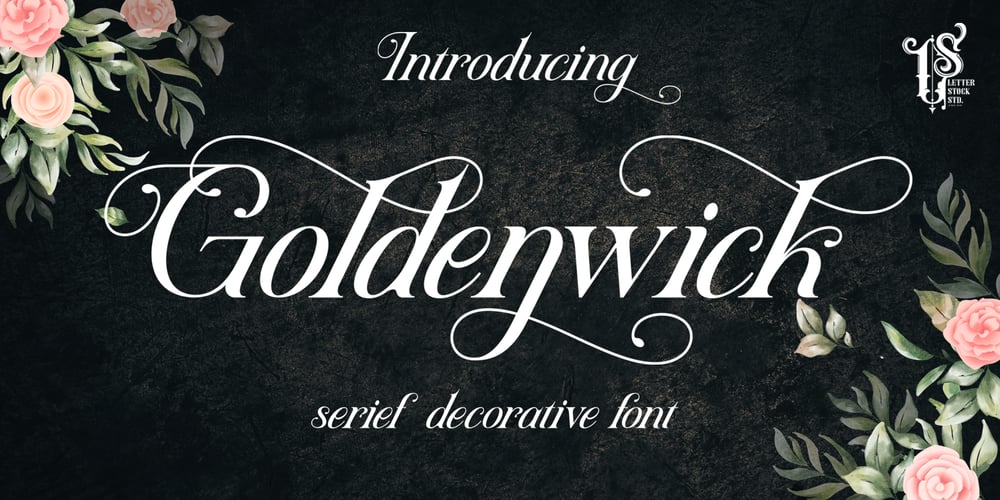
Goldenwick Font Family was designed by Studio LetterStock and published by LetterStock. Goldenwick contains 1 styles and family package options. GoldenwickThis pair was inspired by lettering at invitation design that i got few weeks ago, it was crafted by hand specially to add natural handmade feeling in its brand identity than i make it clean with pentool.Opentype featuresGoldenwick font has 207 character set included.This font is very good for design logo, labels, packaging product, invitations, advertising and others, this font will make your design authentic and good looking with modern calligraphy style.If you’re looking for original calligraphy script font for your greeting card and make your design authentic, this item is a great choice to make your design looks great and unique.This fonts works with following languages:Afrikaans, Albanian, Asu, Basque, Bemba, Bena, Chiga, Cornish, Danish, English, Estonian, Filipino, Finnish, French, Friulian, Galician, German, Gusii, Indonesian, Irish, Italian, Kabuverdianu, Kalenjin, Kinyarwanda, Low German, Luo, Luxembourgish, Luyia, Machame, Makhuwa-Meetto, Makonde, Malagasy, Malay, Manx, Morisyen, North Ndebele, Norwegian Bokmål, Norwegian Nynorsk, Nyankole, Oromo, Portuguese, Romansh, Rombo, Rundi, Rwa, Samburu, Sango, Sangu, Scottish Gaelic, Sena, Shambala, Shona, Soga, Somali, Spanish, Swahili, Swedish, Swiss German, Taita, Teso, Vunjo, Zulu Thank you for using this font.LS